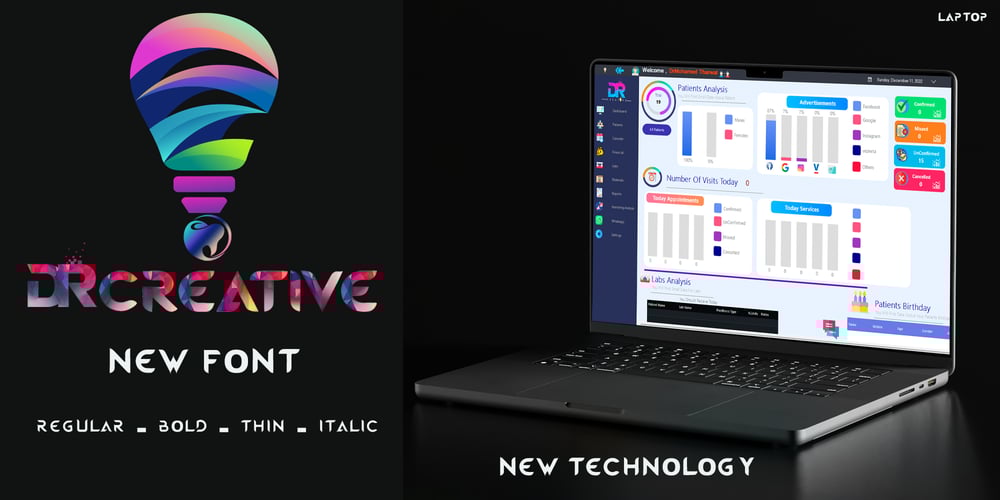
Dr Creative Font Family was designed by Mohamed Tharwat Omara and published by DrCreative. Dr Creative contains 4 styles and family package options. DrCreative TypefaceDrCreative is a modern and bold typeface designed specifically for impactful logo design and striking headers. With its clean, strong lines and carefully crafted proportions, DrCreative helps you create memorable brand identities and captivating titles. Ideal for making a statement, this typeface is perfect for those who want their logos and headlines to stand out with clarity and confidence.Font Family Overview: Regular: The go-to style for clean and professional logos and headers. Bold: Adds extra weight and presence, ensuring your design elements command attention. Italic: Offers a dynamic and stylish variation for logos or headers with a creative twist. Thin: A lighter option for elegant and minimalist designs, great for subtle yet impactful logos. Why Choose DrCreative? DrCreative is tailored for designers who need a versatile typeface that excels in logo creation and header design. Its bold yet refined appearance ensures readability and visual appeal at any size, making it a reliable choice for both print and digital media. DrCreative’s flexibility and support for multiple languages make it an essential tool for designers working on global branding projects.Whether you’re crafting a logo for a new brand or designing a header that demands attention, DrCreative gives your text the power to leave a lasting impression.Applications: Logo Design Branding and Identity Website Headers Print and Digital Advertising Product Packaging and Signage Stand out with DrCreative – a typeface that brings boldness and creativity to every logo and header design.